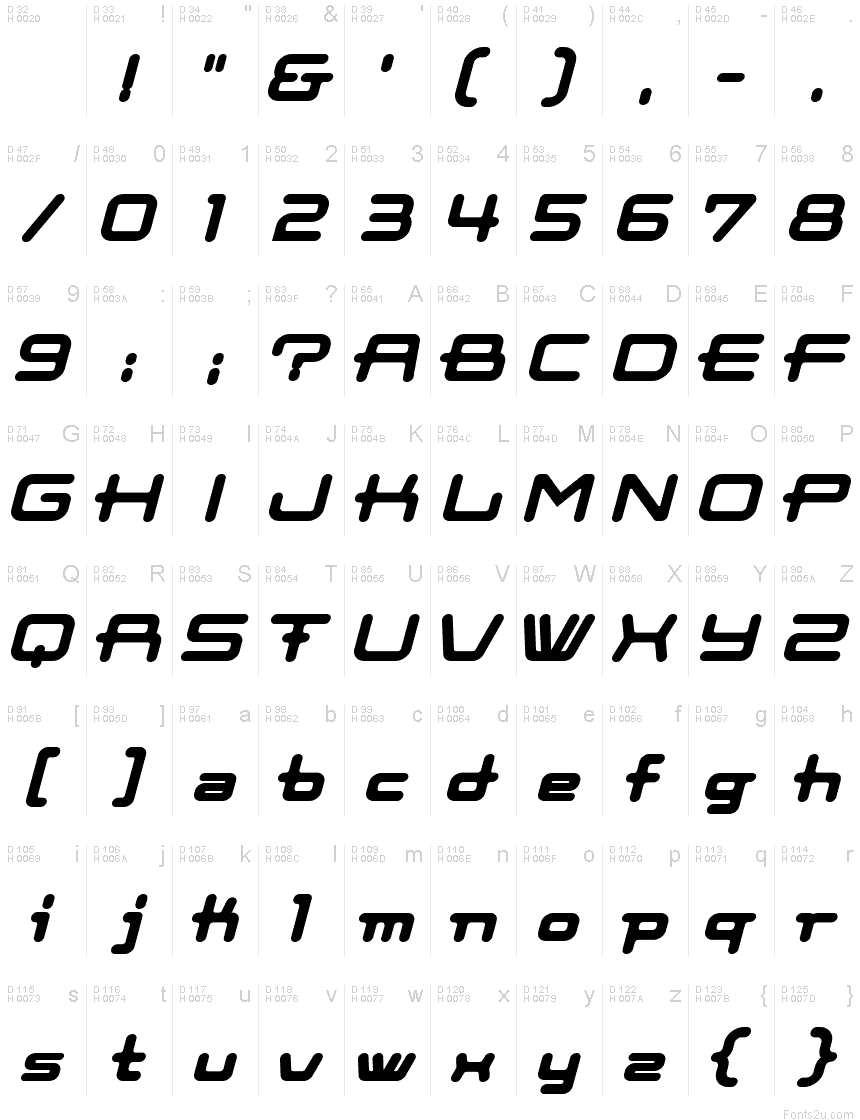
Cootnew BoldItalic
Cootnew Bold Italic font by Masato Shimojima is a free modern display typeface that looks like it’s already in motion. Heavy strokes, tight curves, and a full-time italic stance give it a fast, aerodynamic feel, while the rounded corners keep it friendly instead of aggressive. Letters link visually into a smooth, continuous rhythm, so words feel like a streak of black ink sliding across the page.
Using Cootnew Bold Italic, headlines and logos instantly pick up a sporty, futuristic energy that suits esports teams, tech brands, racing posters, energy drinks, and activewear packaging. This free font shines at larger sizes where its chunky shapes and dynamic slant can really breathe; pair it with a clean geometric sans in a lighter weight for body text and UI labels.